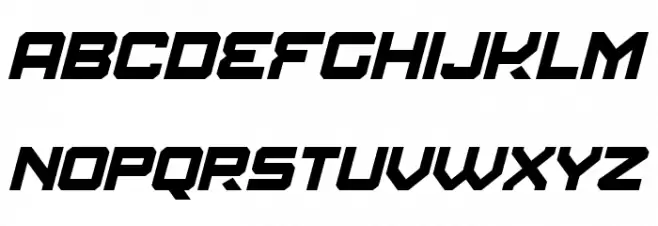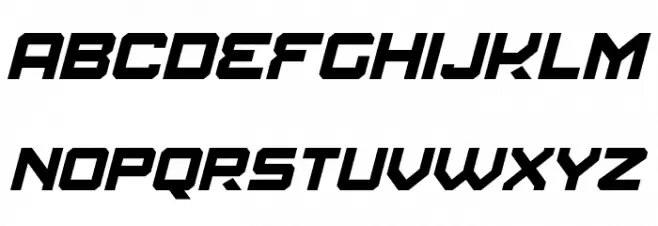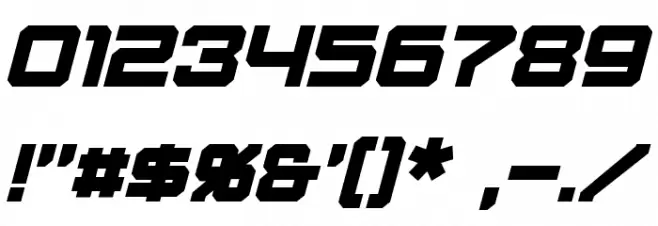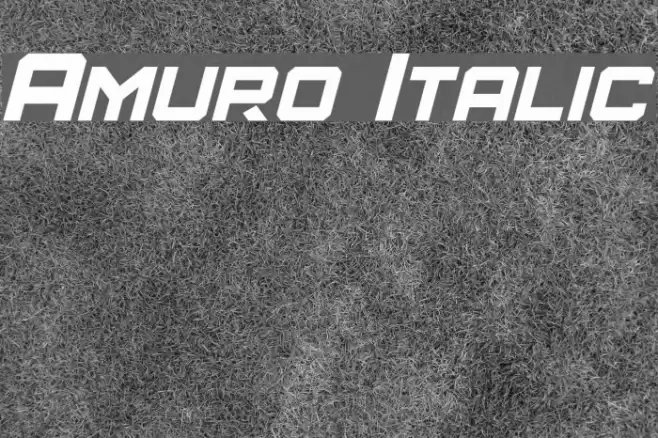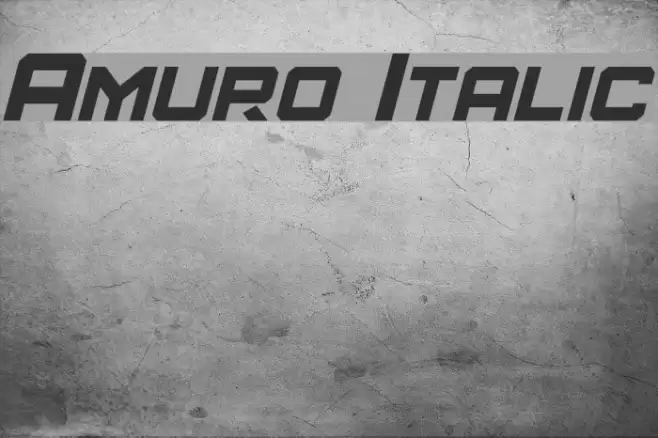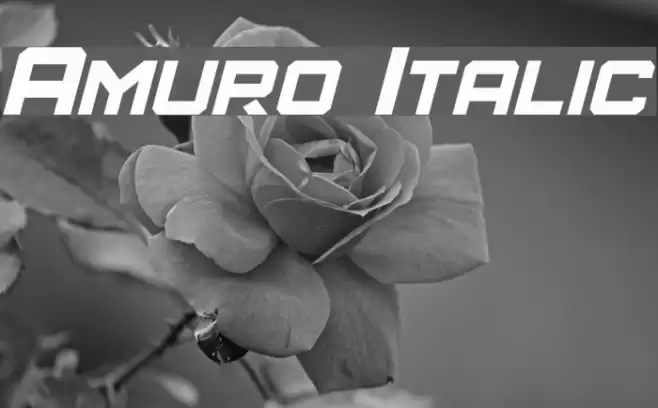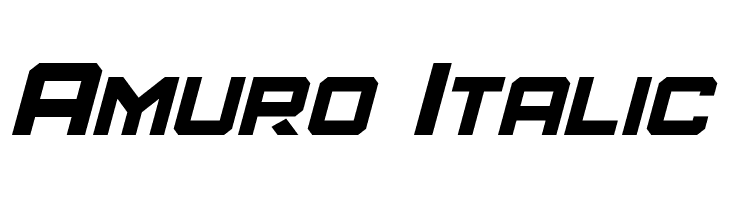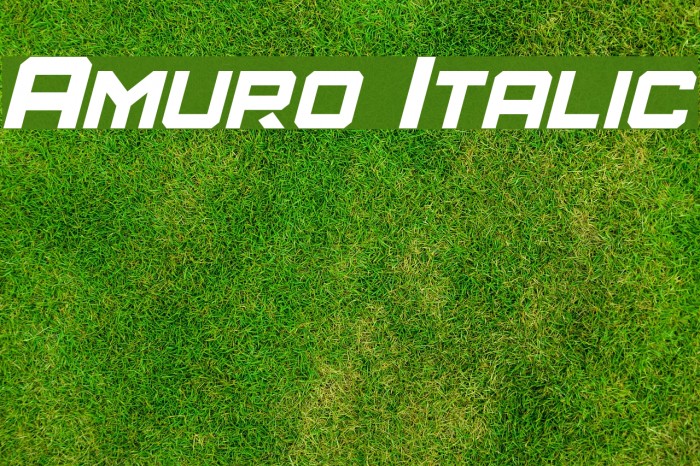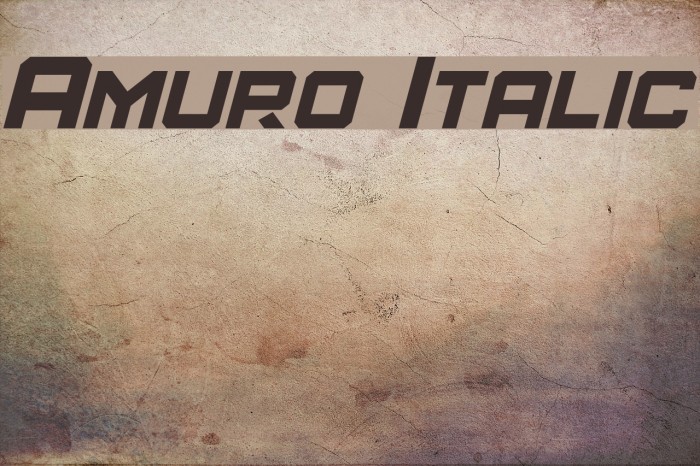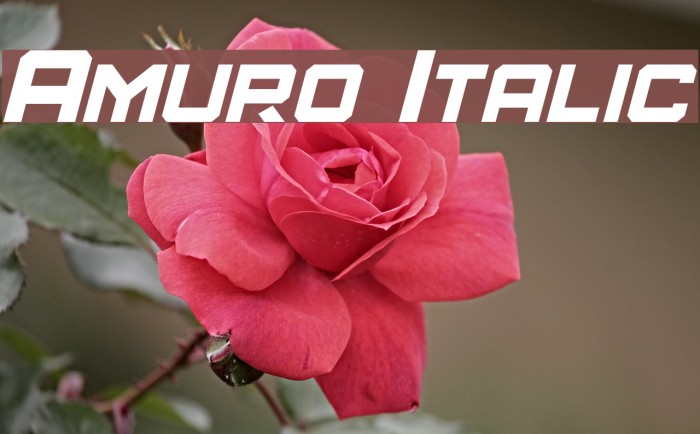
Amuro Italic
This font exhibits a bold, italicized style with a futuristic and dynamic appearance. The characters are angular and geometric, featuring sharp edges and a forward-leaning stance that conveys motion and speed. The uppercase and lowercase letters maintain a consistent style, with the lowercase being slightly smaller but equally bold. Numbers and special characters are designed to match the overall aesthetic, ensuring uniformity across all glyphs. The font's design is highly legible, making it suitable for impactful and attention-grabbing text.
A bold, italicized font with a futuristic and dynamic style.
- Proposed Projects: Ideal for projects requiring a modern and energetic look, such as technology branding, sports team logos, or sci-fi themed designs.